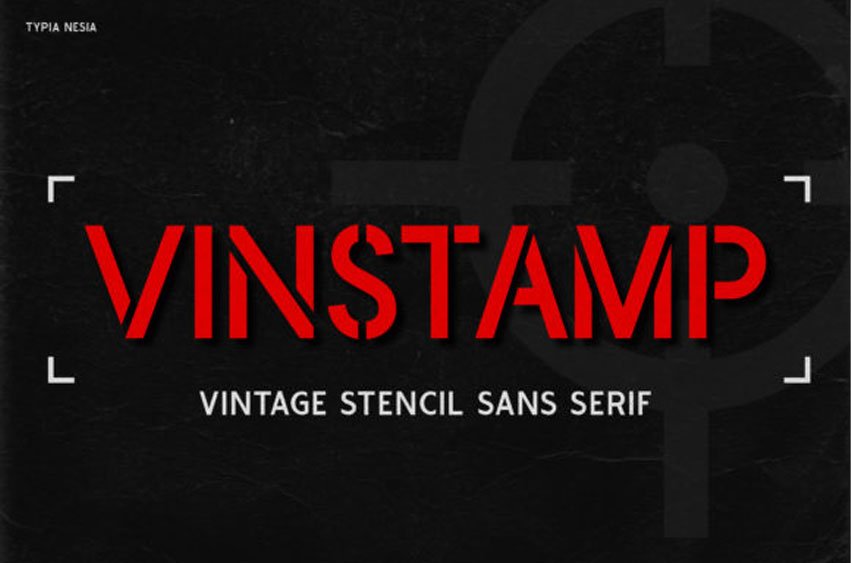
Vinstamp Font
Vinstamp Font is a classic display font.
Vinstamp will look outstanding in any context, whether it’s being used on busy backgrounds or as a standalone headline!